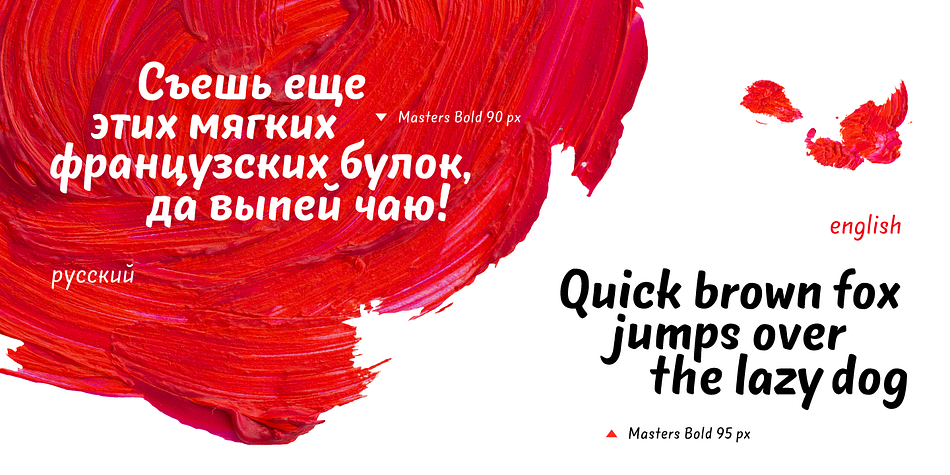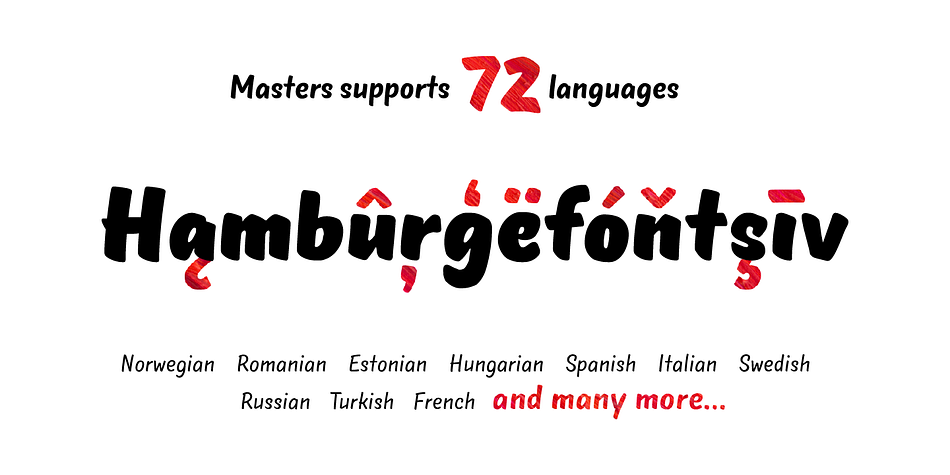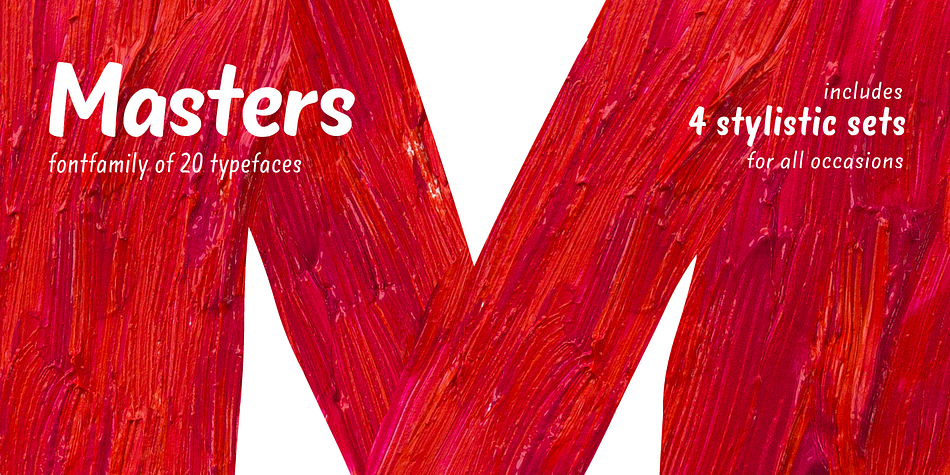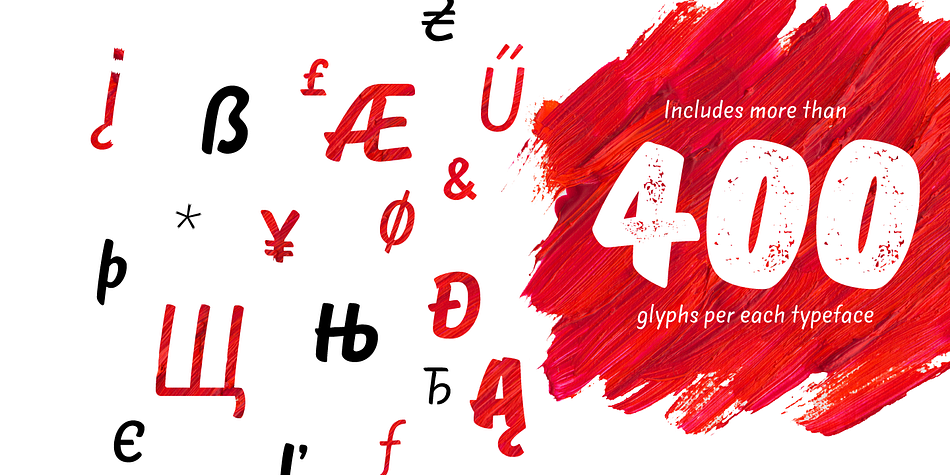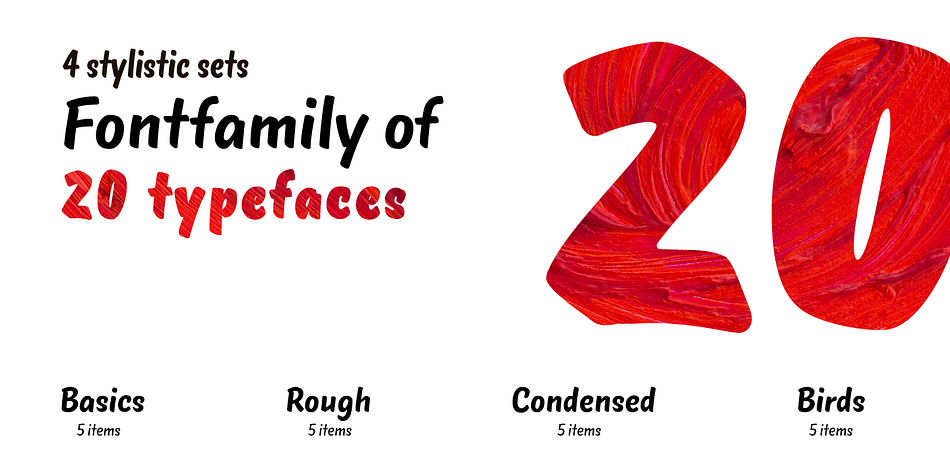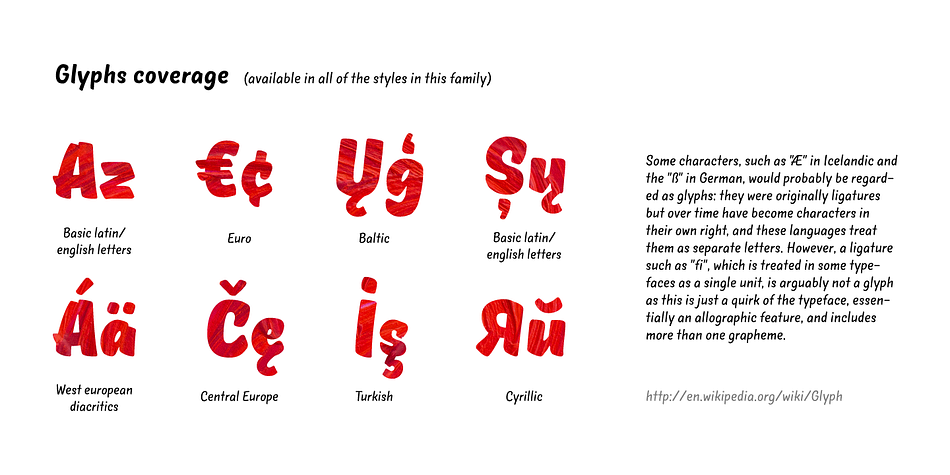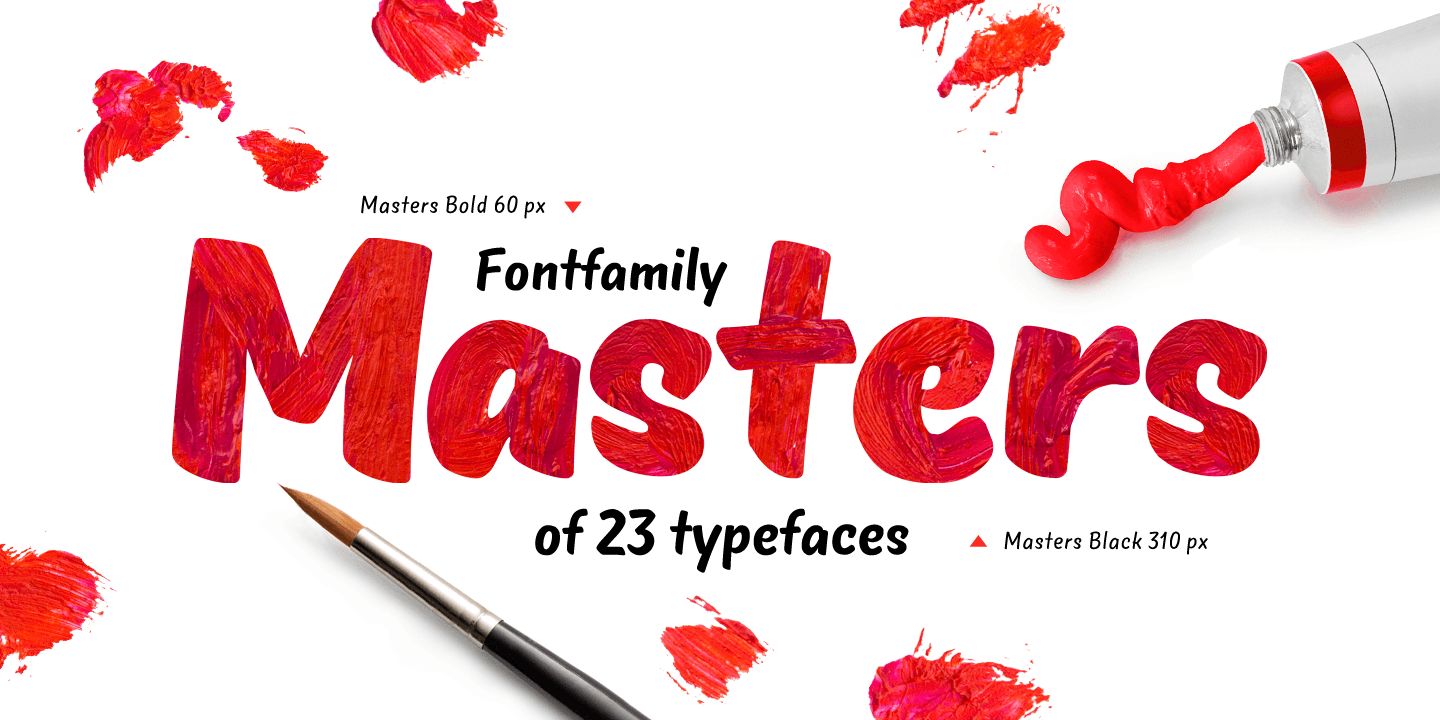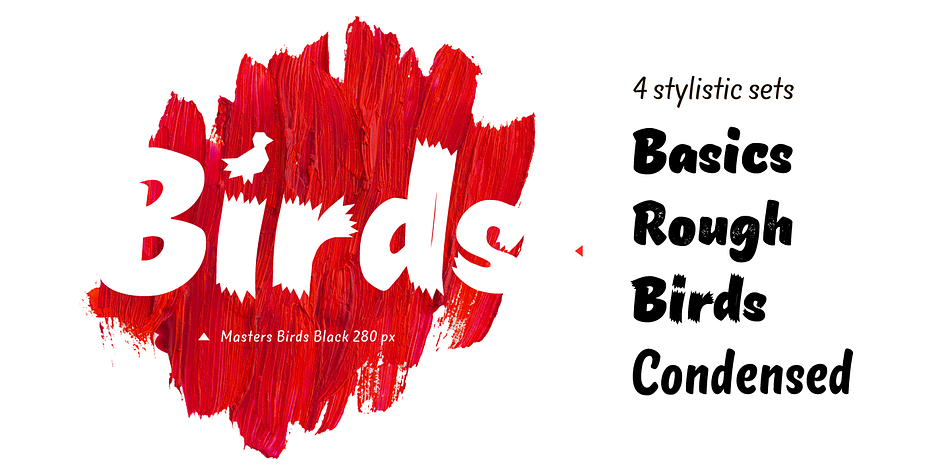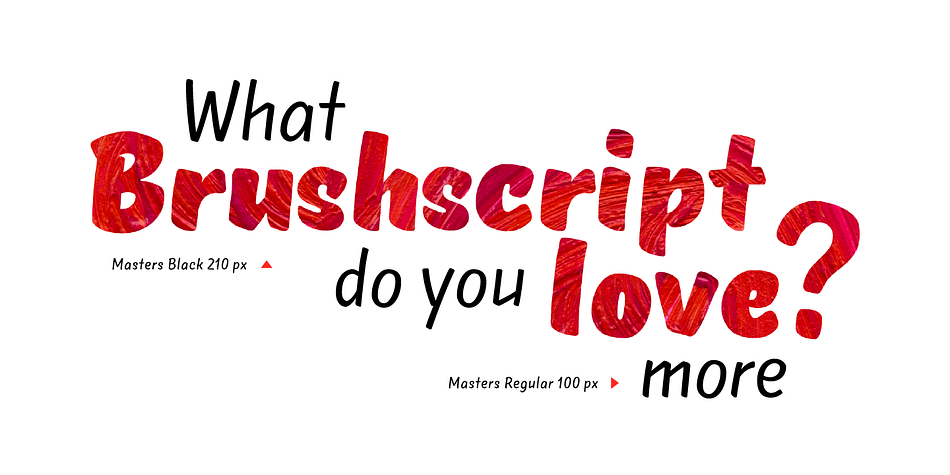
Designed by Ivan Gladkikh, Pinatas Masters is a brush script font family. This typeface has twenty styles and was published by Piñata.
Original Foundry: TypeType
Original name: TT Masters
Pinatas Masters is a very emotional typeface. This typeface will add to your design sincerity and warmth.
Pinatas Masters typeface consists of 4 different subfamilies: Pinatas Masters, Pinatas Masters Birds, Pinatas Masters Rough and Pinatas Masters Condensed. Each subfamily consists of 5 styles: Thin, Light, Regular, Bold and Black.
Scope of typeface: DIY, handmade stuff, interior design, infographics, graphic design, logotypes, packaging, design of exhibitions, presentations.